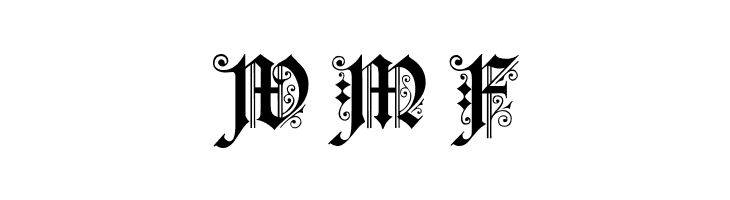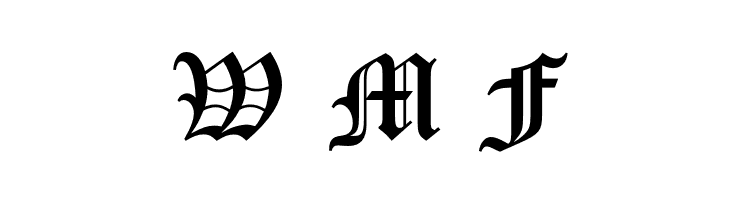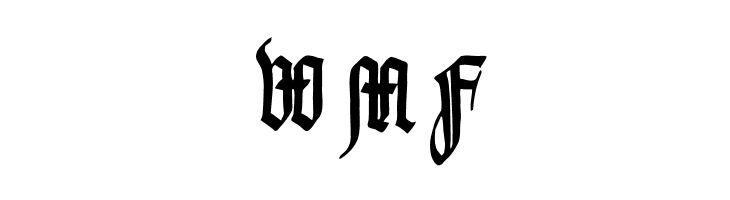
A traditional Blackletter font with ornate, angular letterforms and high contrast.
An ornate and decorative font with intricate flourishes, ideal for regal and elegant designs.
An ornate Blackletter font with intricate details and a gothic aesthetic.
An ornate and elegant script font with elaborate swirls and flourishes.
A decorative Blackletter font with intricate flourishes and Gothic style.
An ornate, medieval-inspired font with intricate decorative elements.
A bold, gothic-inspired font with sharp, angular lines and a medieval touch.
A Gothic-style font with ornate, medieval-inspired characters.
A decorative blackletter-style font with intricate flourishes and sharp, angular strokes.
An ornate and intricate Old English style font with bold, angular letterforms.
A classic Gothic-style font with ornate and intricate letterforms.
A bold, ornate Gothic script with intricate details and historical elegance.
An ornate Victorian Gothic font with elaborate flourishes and decorative elements.
A Gothic-style font with intricate, angular strokes and ornate serifs.
A decorative Gothic-style font with intricate, angular strokes and elaborate serifs.
Ornate, decorative capital letters with intricate frames, ideal for fantasy themes.
An ornate and regal font with intricate details and decorative flourishes.
A classic Gothic-style font with ornate, angular characters and decorative serifs.
An ornate and intricate blackletter font with a classic and historical style.
A classic, ornate font with Gothic influences and intricate detailing.
A traditional Blackletter font with intricate, ornate designs and sharp, angular lines.
An ornate and decorative serif font with intricate floral embellishments.